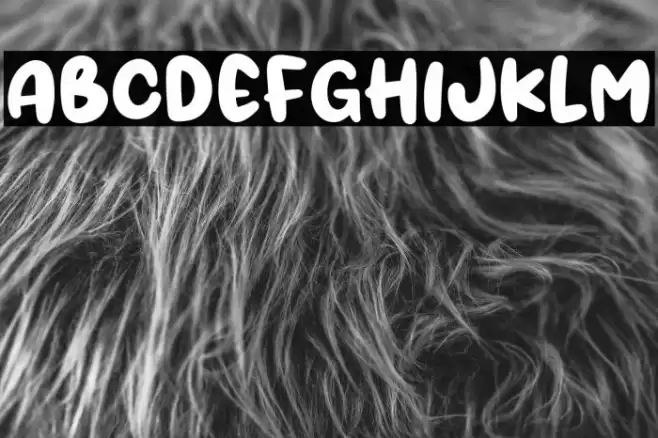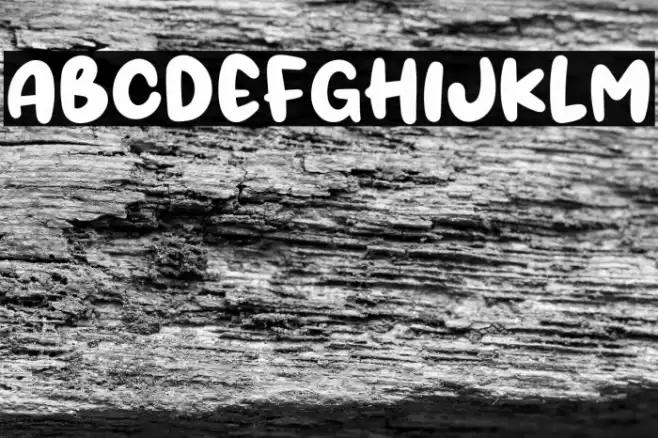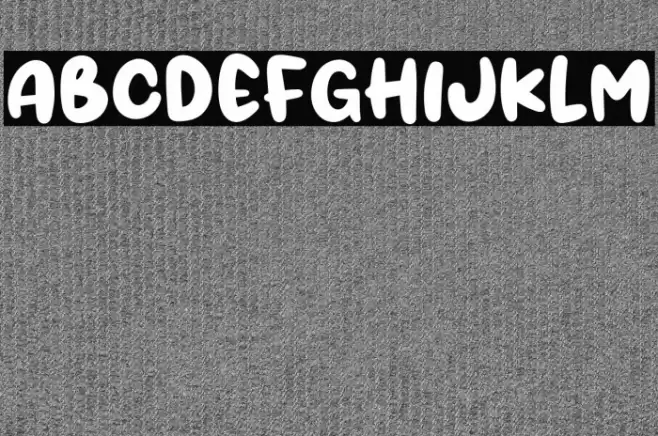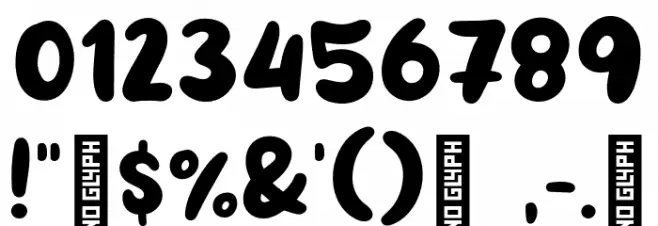
Orange Days Font
Orange Days Description
This playful and bold font features rounded, thick strokes that give it a friendly and approachable appearance. The characters are slightly irregular, adding a hand-drawn, whimsical feel. The uppercase and lowercase letters maintain a consistent style, with smooth curves and a slightly exaggerated width. Numbers and special characters are designed to match the overall aesthetic, ensuring a cohesive look across all text. The font's informal style makes it ideal for projects that require a touch of fun and creativity.
A playful, bold font with rounded, thick strokes and a hand-drawn feel from Cartoon fonts.
- Font: Orange Days
- Proposed Projects: Ideal for children's books, playful branding, casual invitations, and creative posters.
- Width: Expanded
- Overall Style: Playful